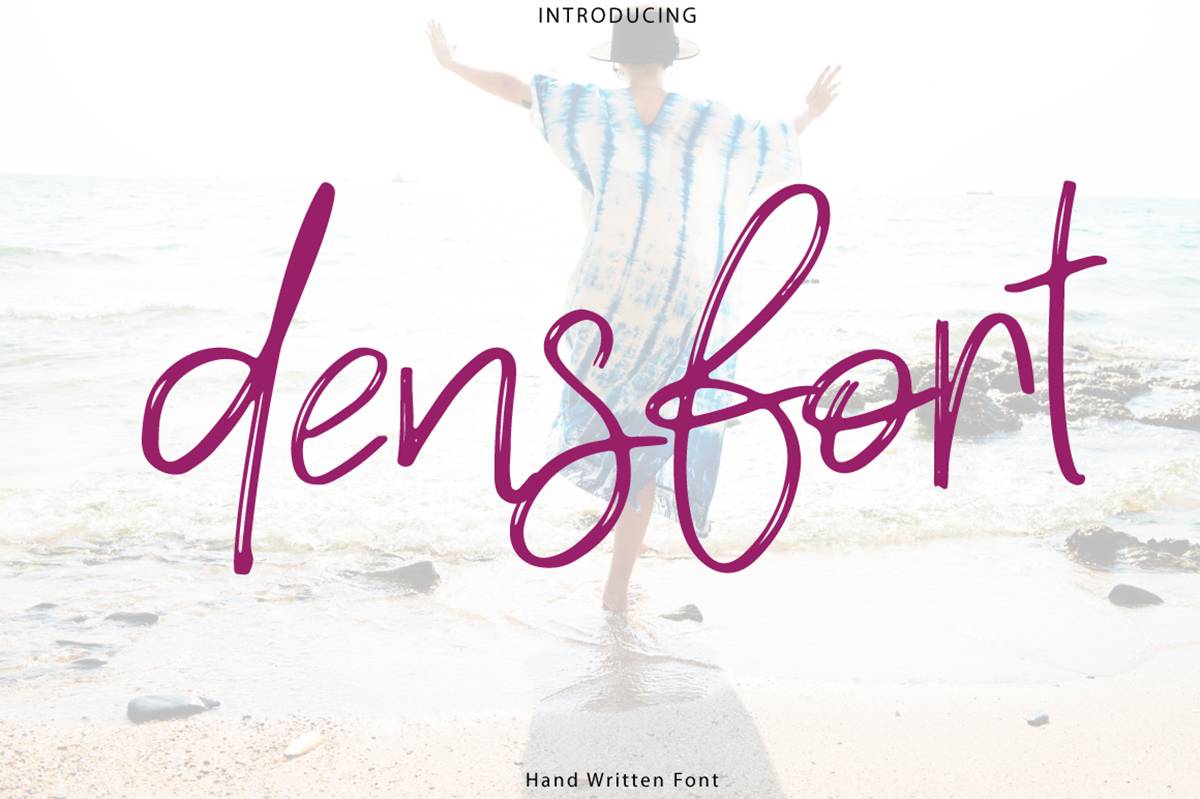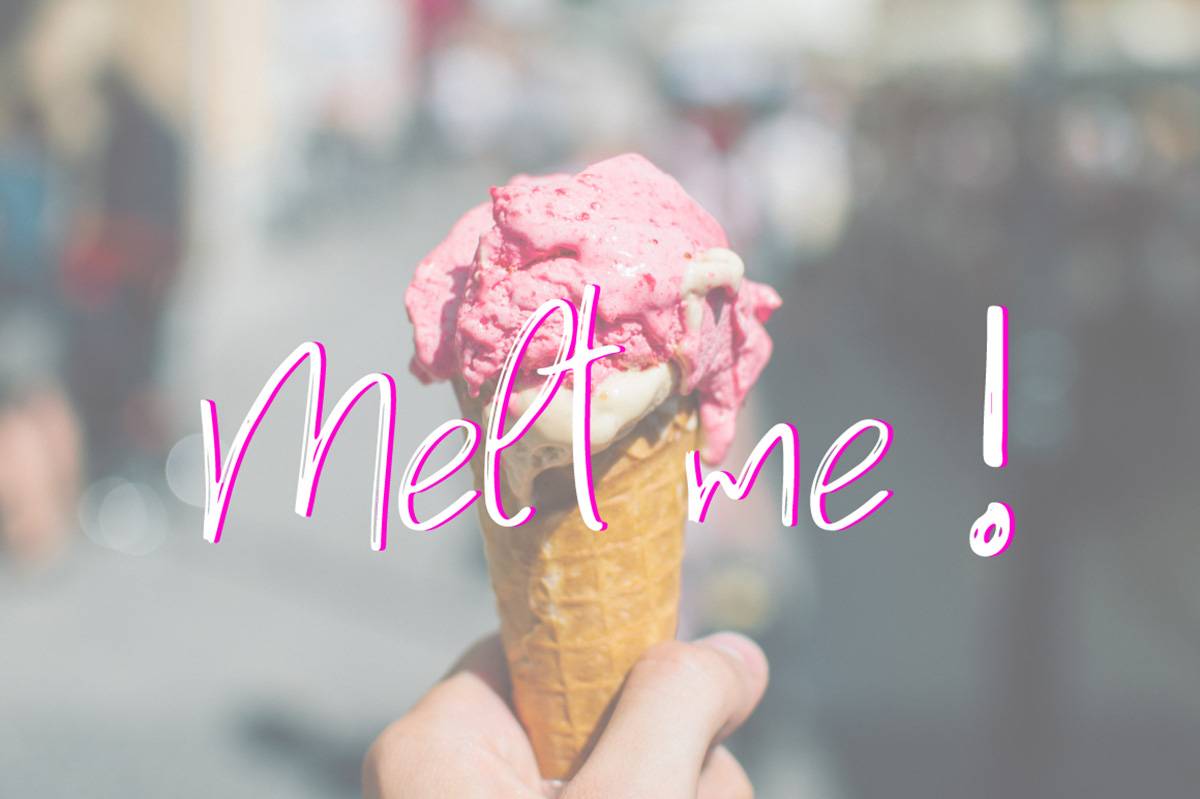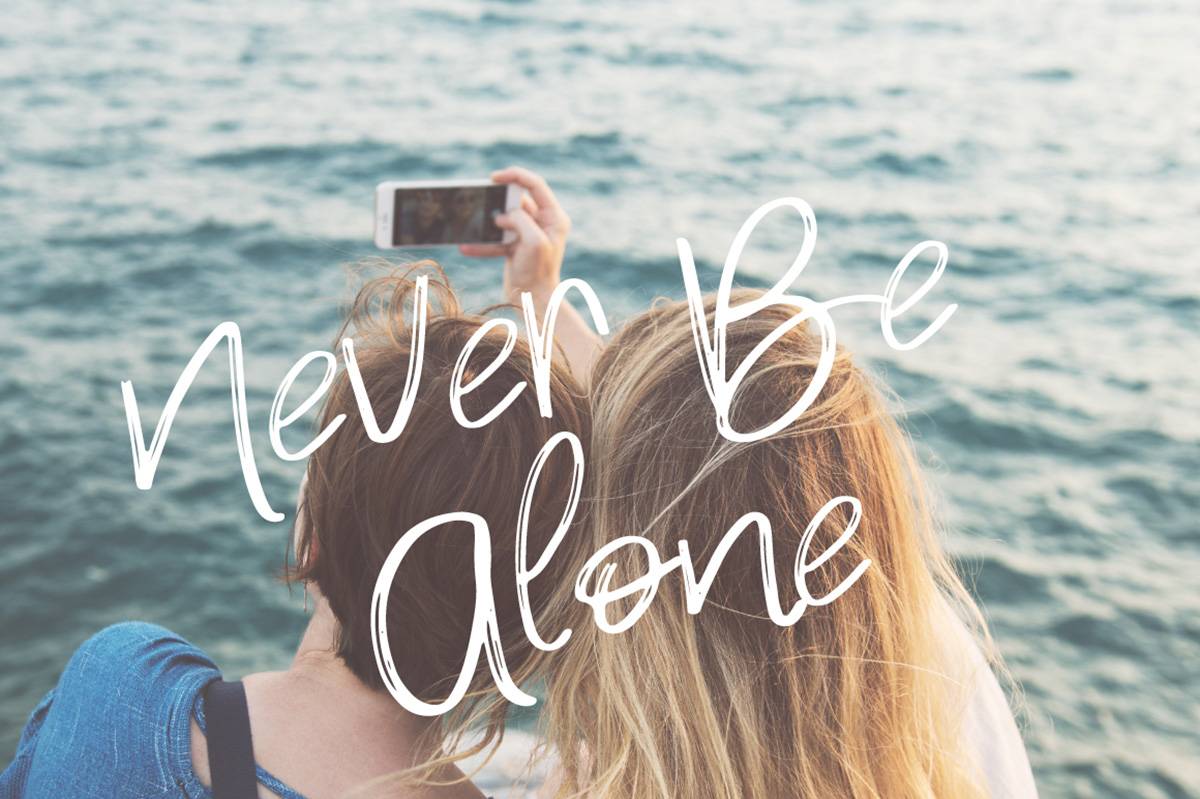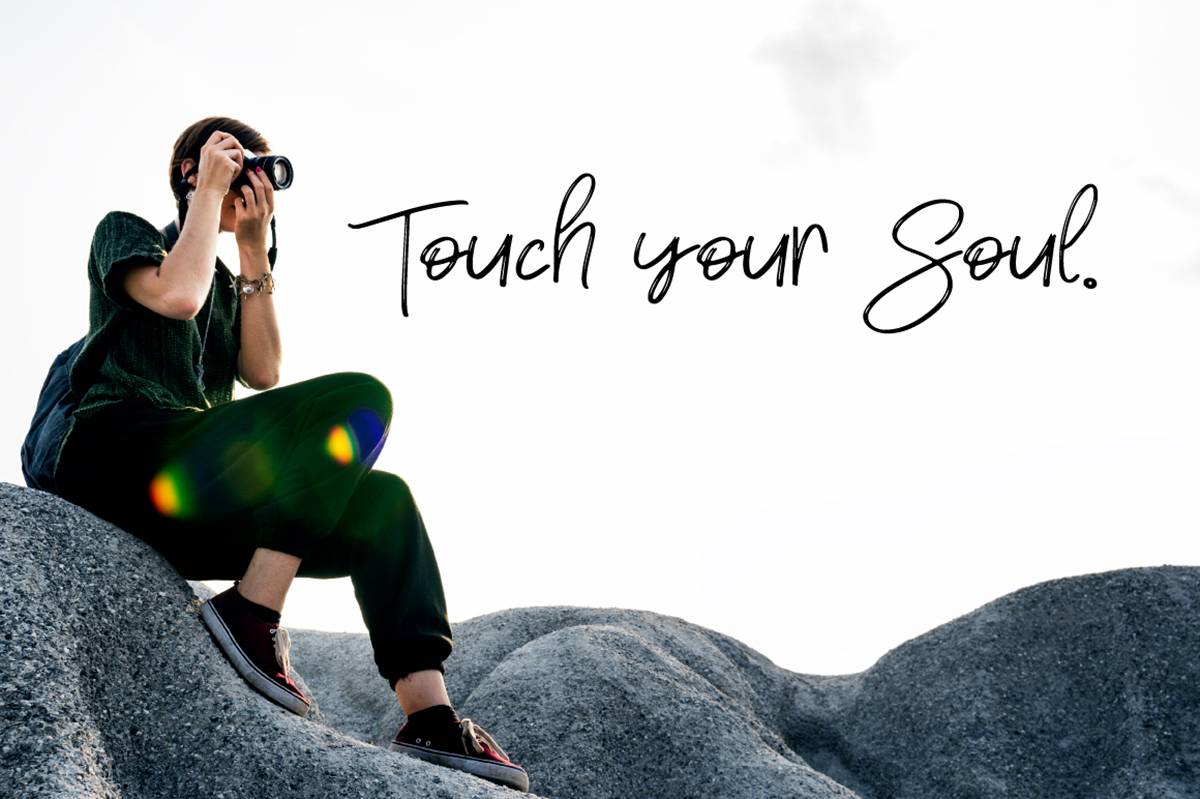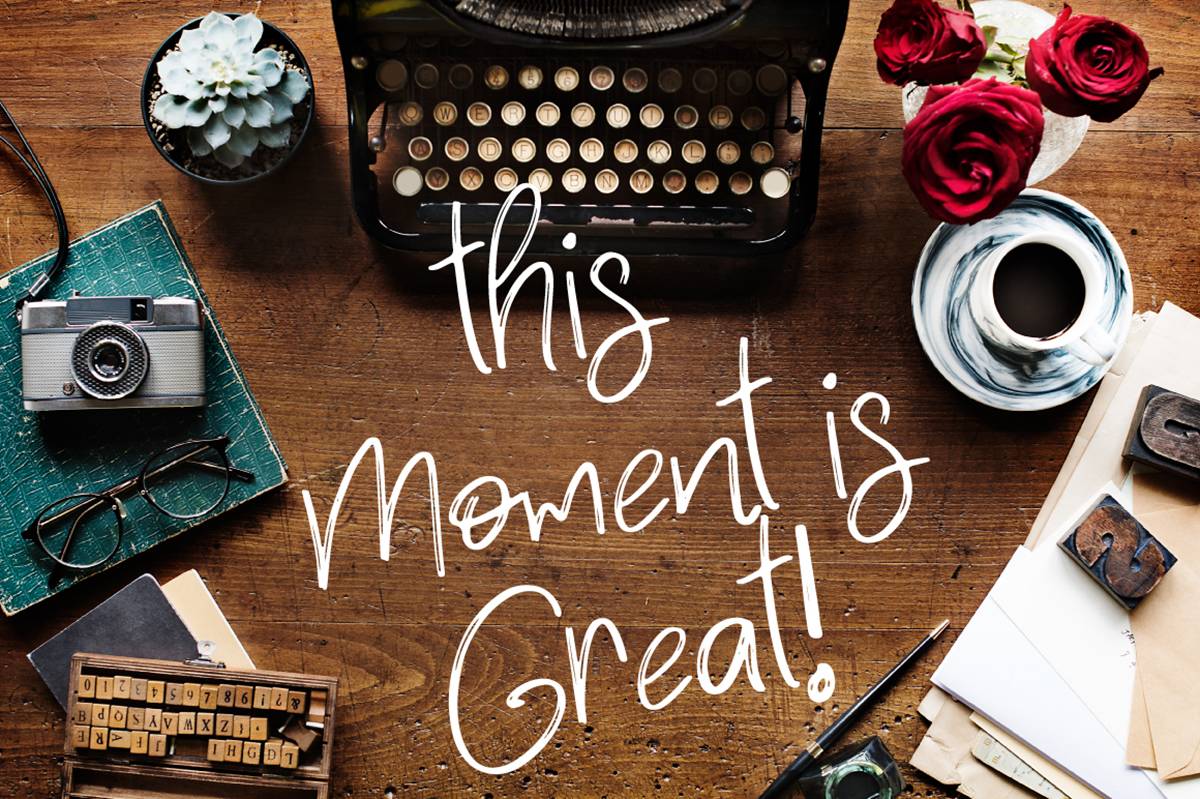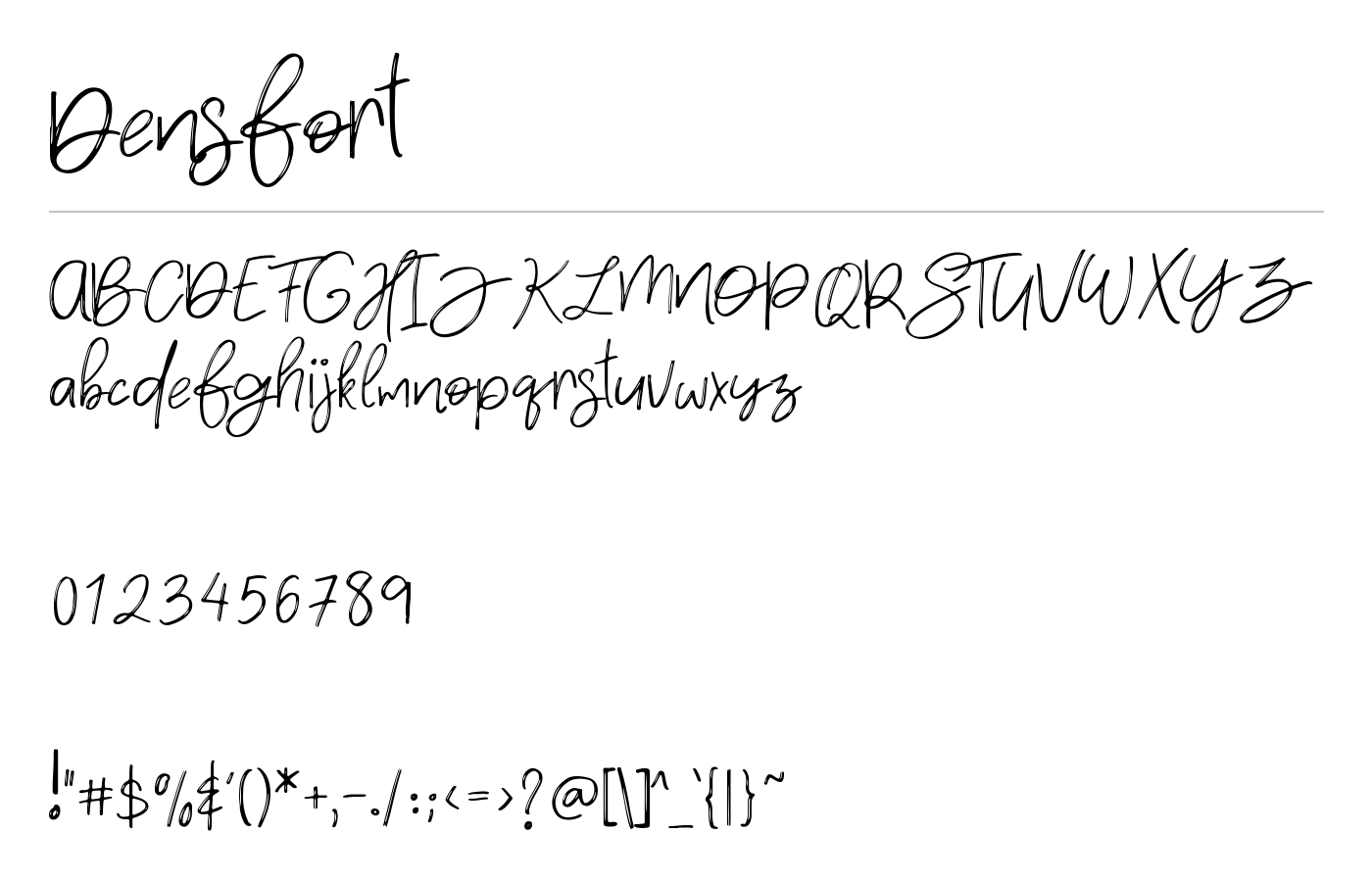
Densfort is a lively handwritten script font with a casual, natural feel, featuring thin, slightly irregular strokes that mimic spontaneous penmanship. Its airy letterforms, mixed-case support, and unique character shapes make it ideal for adding a personal, approachable touch to creative projects like branding, invitations, and social media graphics. This font works best where a playful yet elegant handwritten style is needed to convey authenticity and warmth.
Densfort Font
About Densfort Font
| Font family | Densfort Font |
| Release date | 2017-08-18 |
| Designer | Nursery Art |